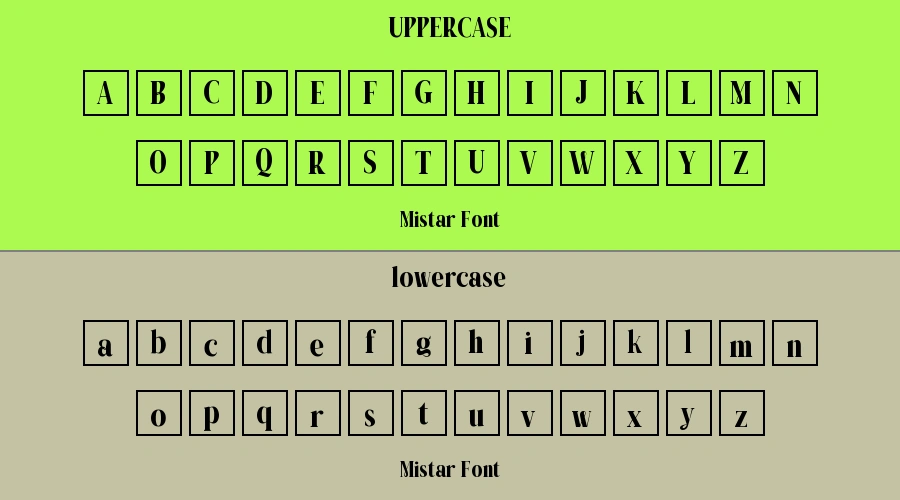
About Mistar Font
When typographic excellence matters most, Mistar Font delivers through its thoughtful blend of high x-height and craftsmanship. Specially crafted for newspaper text, it offers the clarity and creative potential required for sophisticated design work. Every detail serves a purpose.
The character set showcases thoughtful details like balanced weights alongside functional discretionary ligatures. This proves especially valuable in page numbers, where OCR compatibility directly influences results. Particular attention was paid to counter size and contemporary relevance during development.